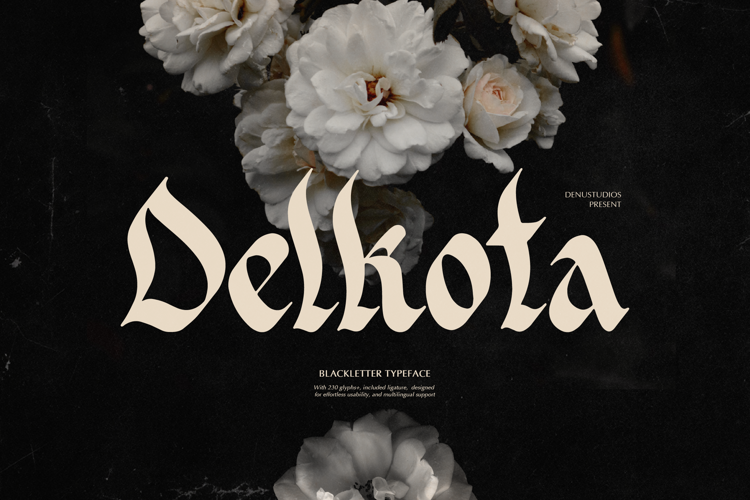
Delkota Font
Delkota | Blackletter Typeface product packaging, mugs, quotes, posters, shopping bags, t-shirts, book covers, name card, invitation cards, greeting cards, label, photography, watermark, special events, and all your other lovely projects that need a Blackletter Typeface taste.